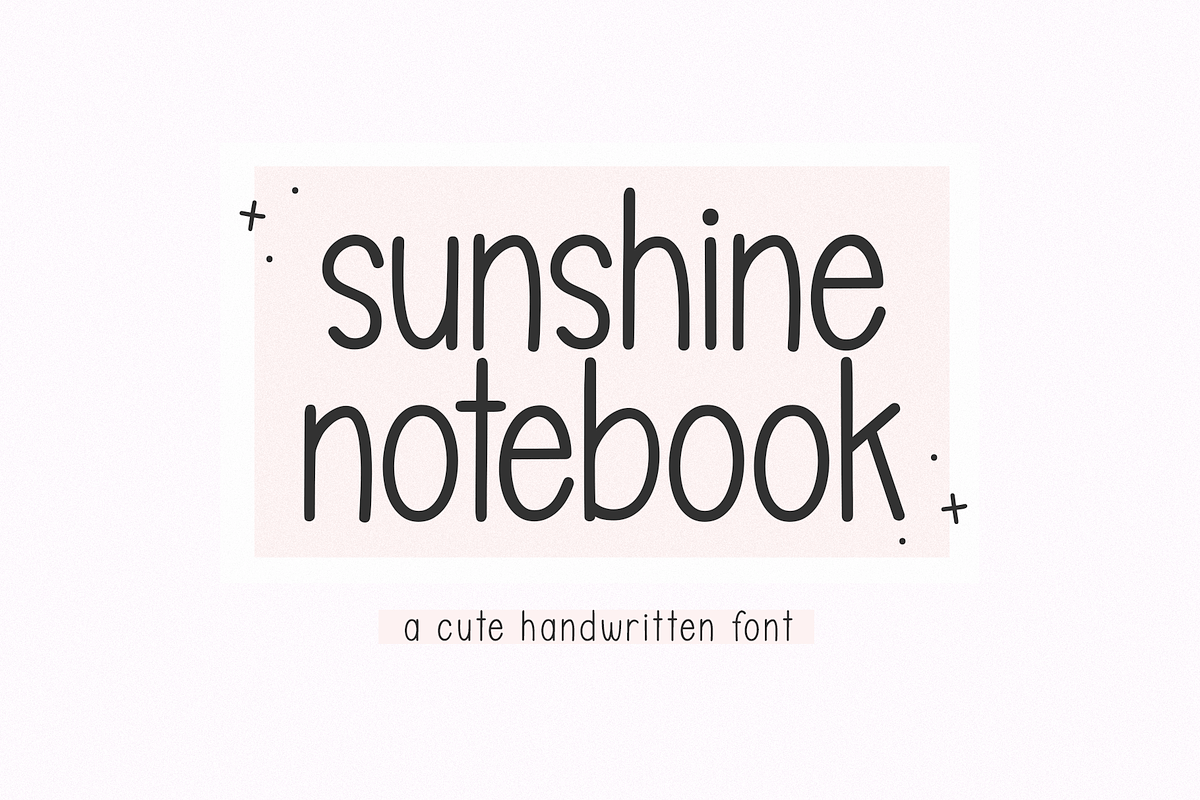
Sunshine Notebook | Cute Font Free Download
The Sunshine Notebook | Cute Font Free Download is a playful and charming handwritten typeface that captures the essence of fun and creativity. Perfect for children’s designs, stationery, personal projects, social media graphics, and branding, this font brings a warm, friendly vibe to your work.
With its rounded, irregular strokes and casual style, Sunshine Notebook adds a personal, friendly touch to your designs. It includes uppercase and lowercase letters, numbers, punctuation, and multilingual support, making it perfect for a wide range of creative applications.